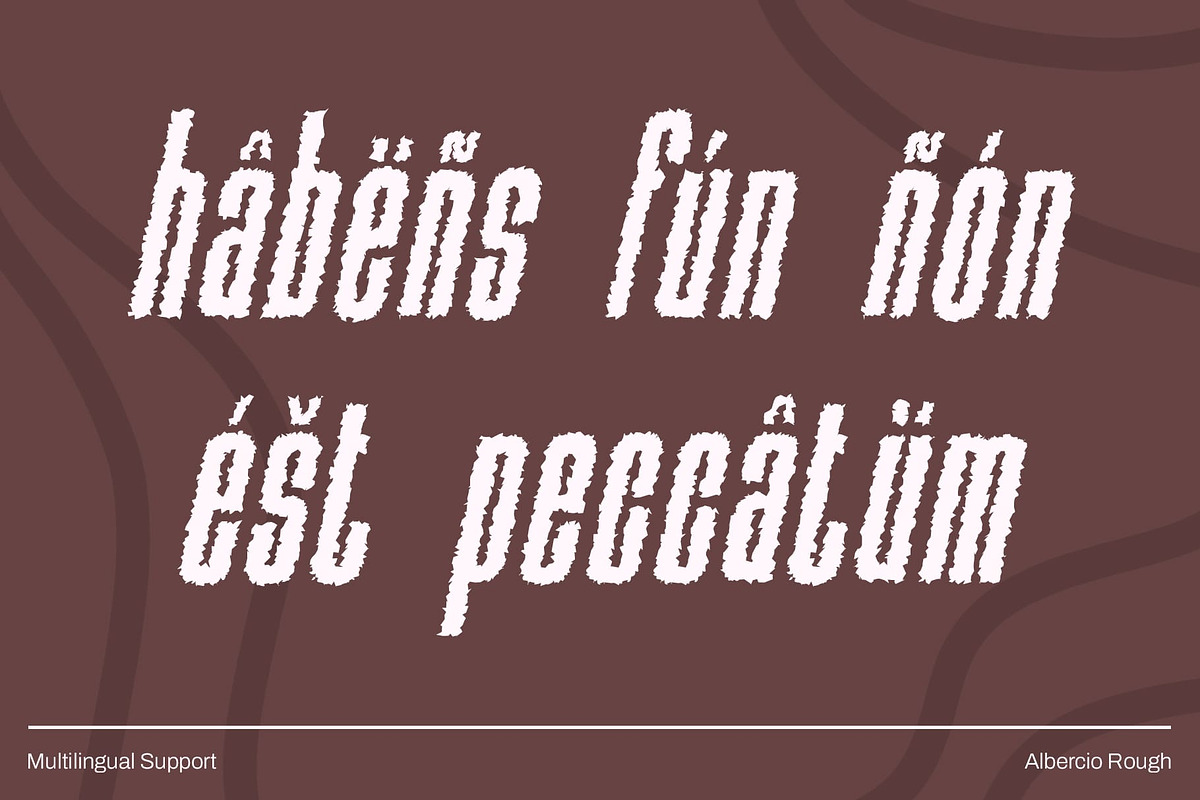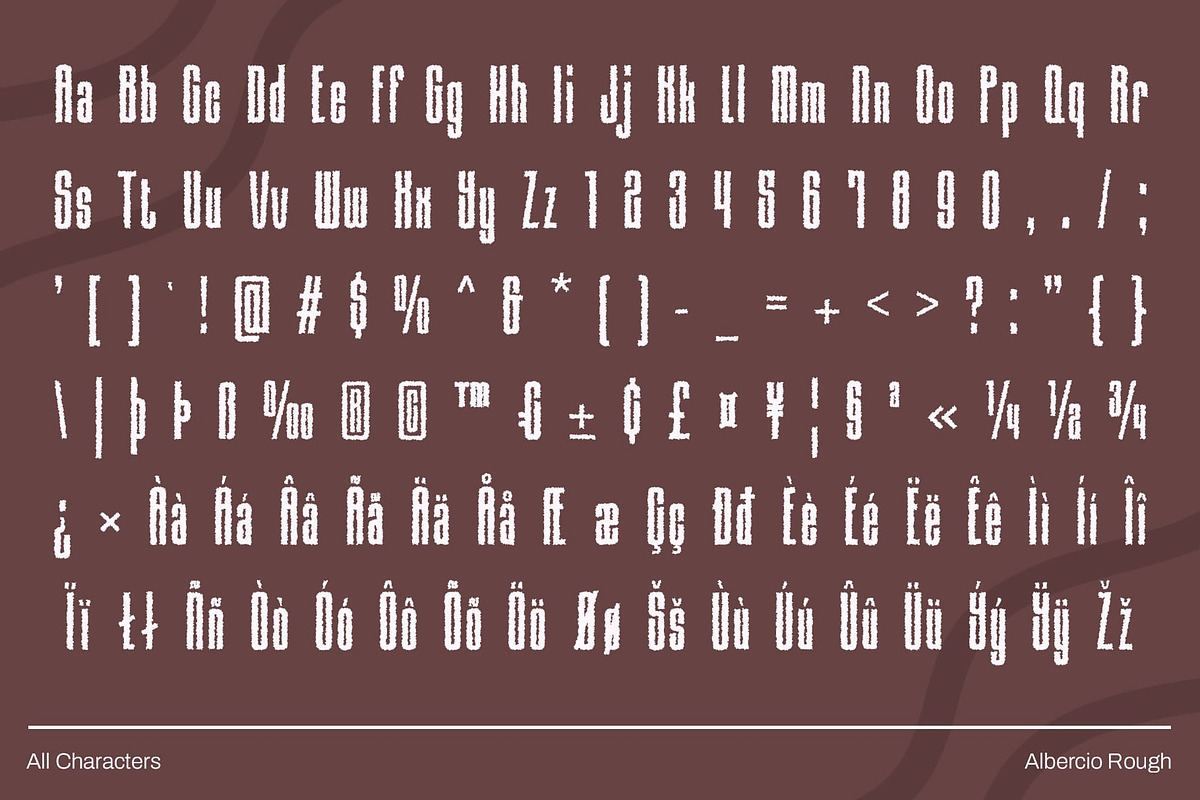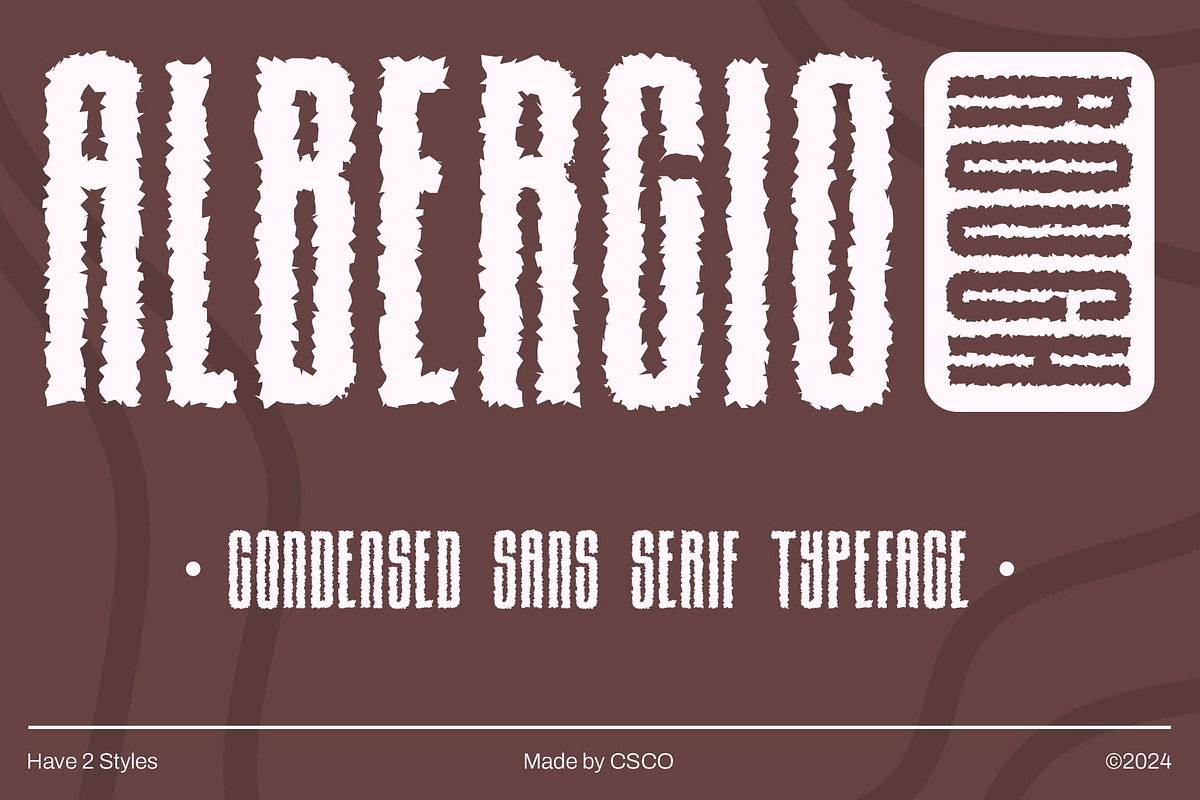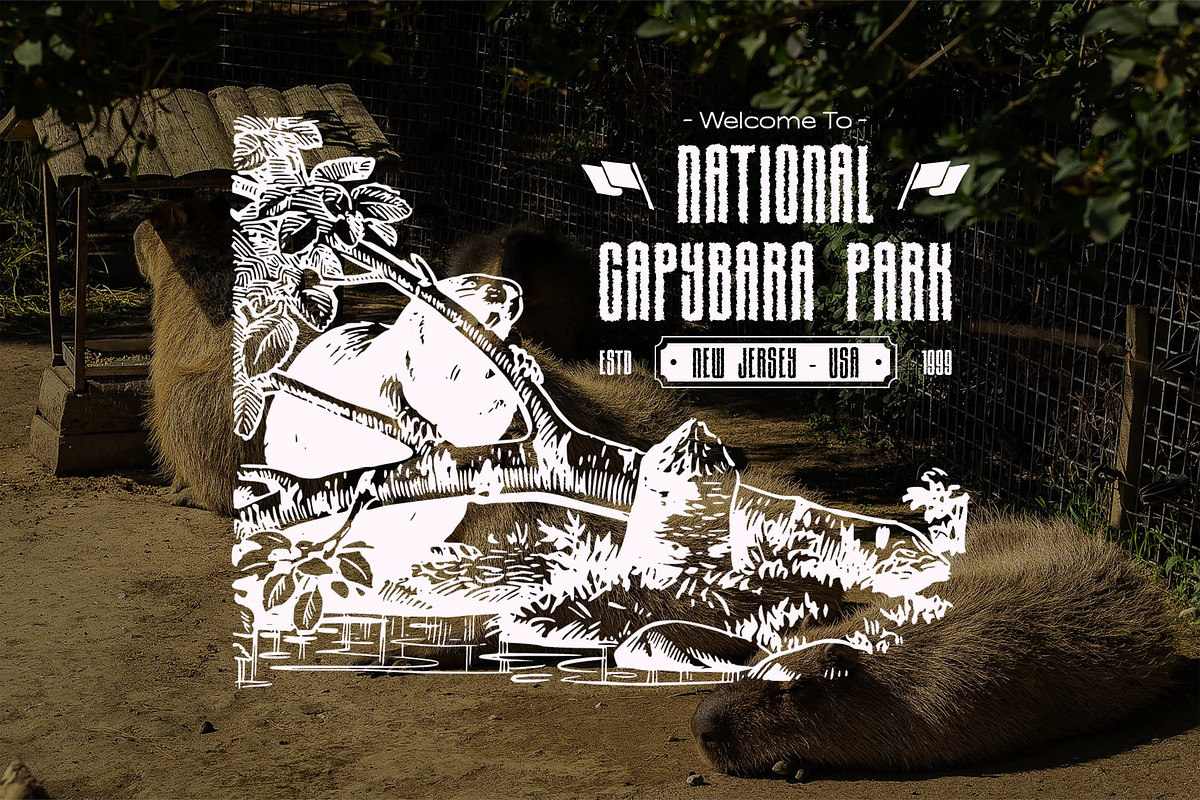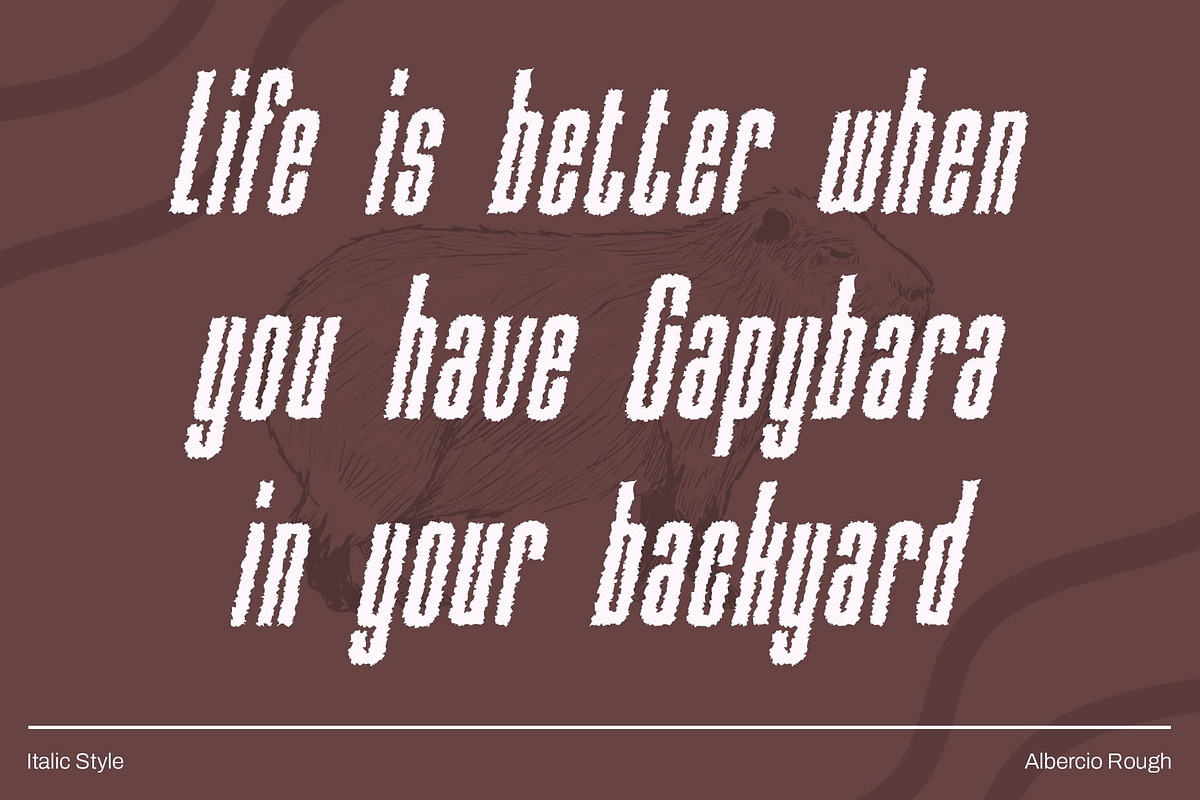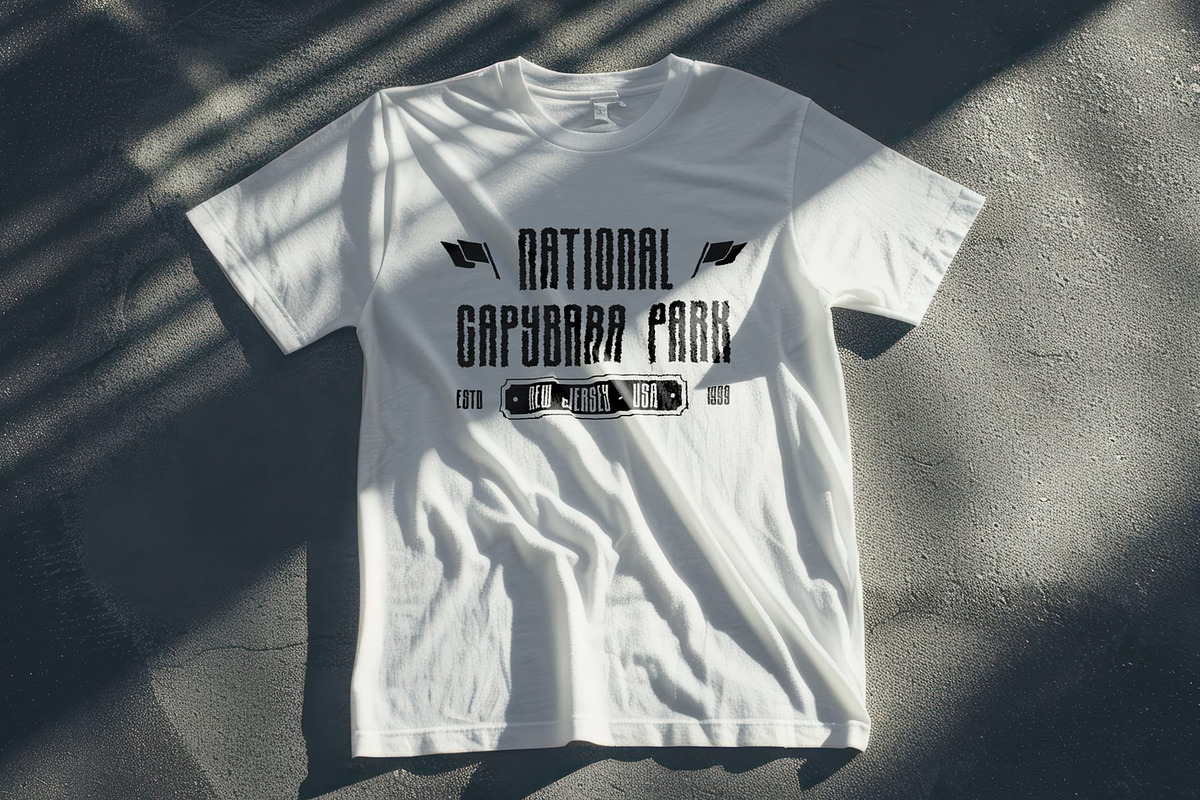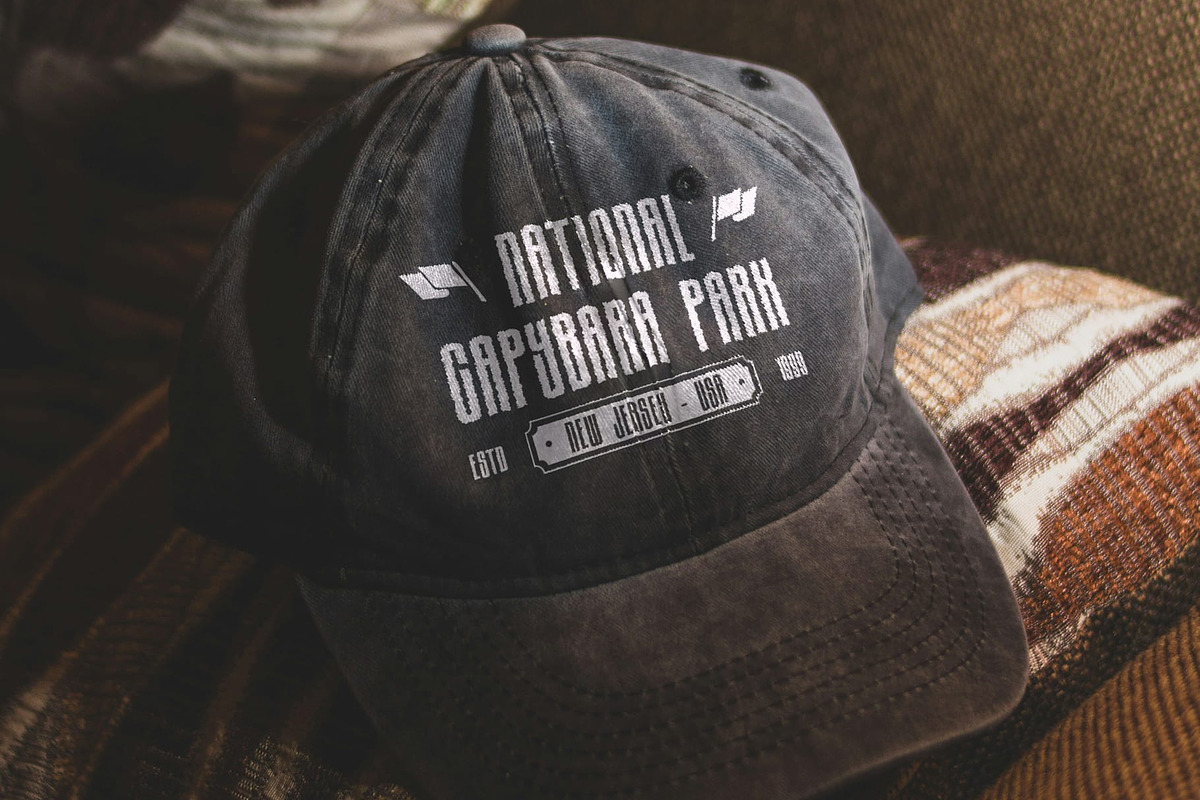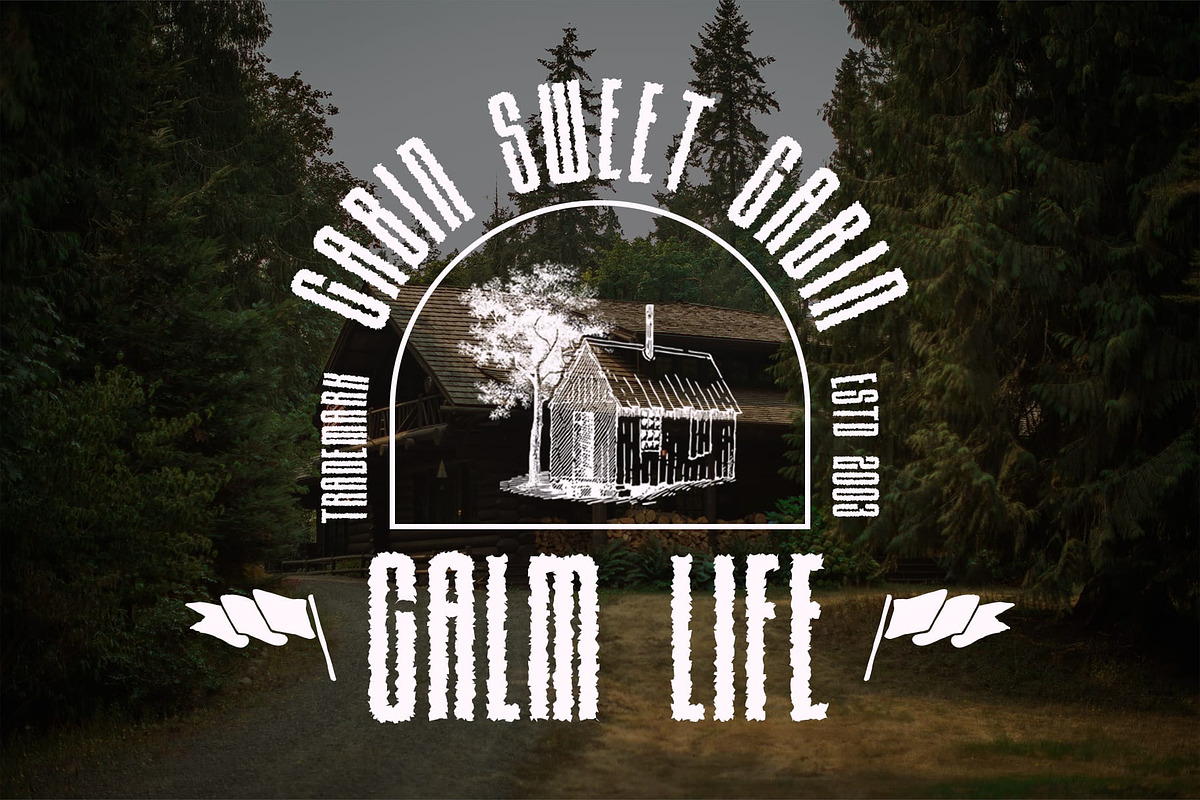
Albercio Rough
Albercio Rough Font: Bold Modernity with an Industrial Edge
Sleek and Condensed Design Albercio Rough is a modern sans serif font featuring condensed shapes that deliver a sleek, minimalist aesthetic. Its streamlined form offers a sharp and clean look, ideal for projects that emphasize clarity and modernity. The compact design ensures high readability, making it perfect for headlines, branding, and impactful visual compositions.
Rough Texture for an Urban Feel What sets Albercio Rough apart is its unique rough effect, which adds a gritty, industrial feel to its modern shapes. This texture brings an urban edge to the font, infusing your designs with character and a touch of rawness. It’s a perfect blend of simplicity and ruggedness, ideal for projects that aim to stand out while maintaining a modern, sophisticated style.
Perfect for Bold and Distinctive Designs The combination of condensed shapes and rough texture makes Albercio Rough an excellent choice for design projects that require a balance of boldness and uniqueness. Whether you’re working on edgy branding, dynamic posters, or packaging designs that need to make a statement, this font delivers a distinctive and contemporary look that resonates with today’s visual trends.